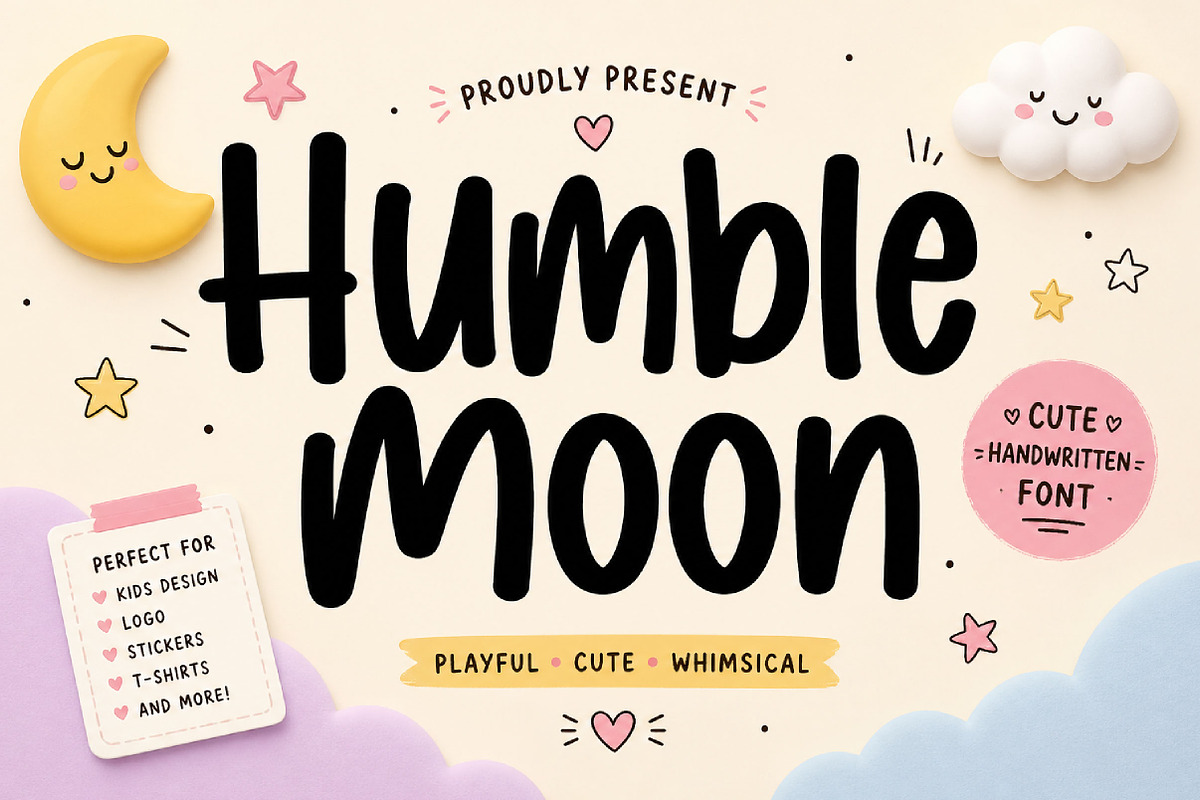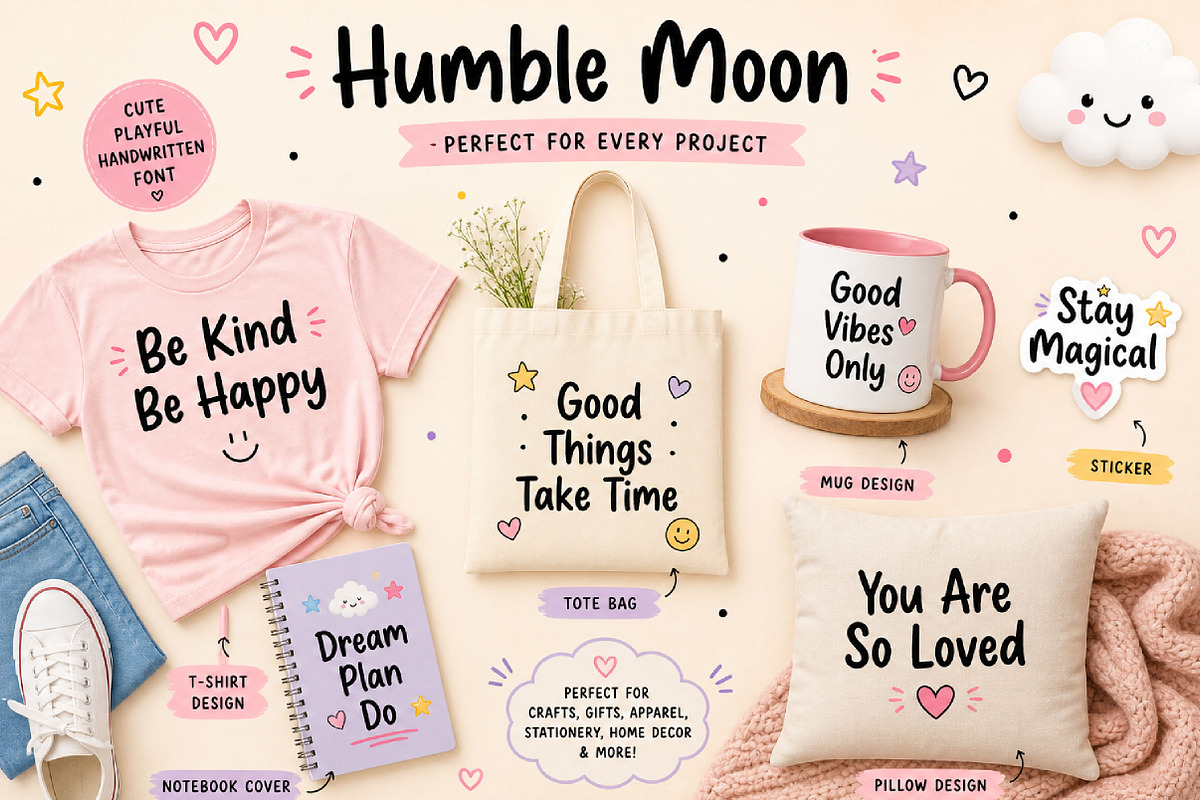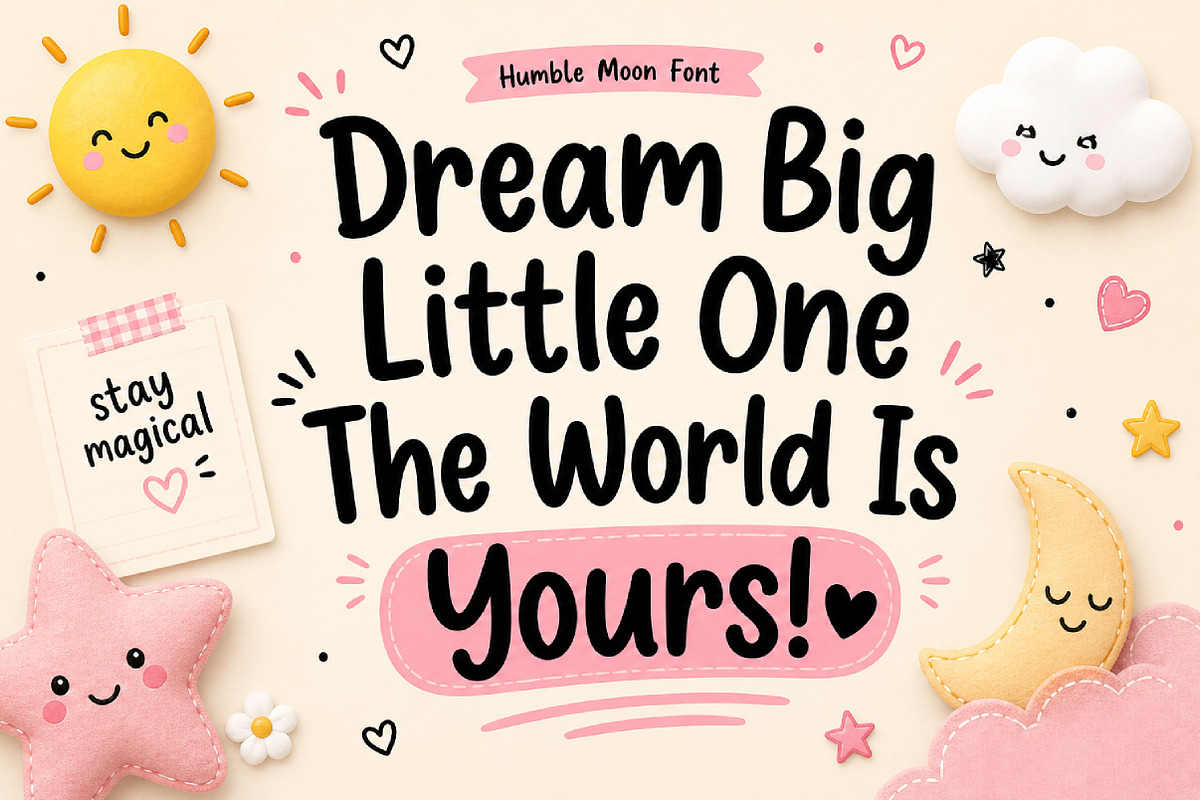
Humble Moon
Humble Moon – Bold Handwritten Display Font
Humble Moon is a bold handwritten display font with smooth, playful strokes and a friendly modern feel, perfect for logos, branding, posters, packaging, social media, and creative lifestyle designs.
Humble Moon is a bold handwritten display font designed to bring warmth, charm, and personality to your creative projects. With its thick strokes, rounded shapes, and smooth hand-drawn style, this font creates a fun and memorable look that feels modern, friendly, and expressive.
Its playful handwritten character makes Humble Moon perfect for designs that need a bold yet approachable touch. Use it for branding, logo design, product packaging, posters, social media graphics, merchandise, children’s products, website headers, creative quotes, and lifestyle designs.
Logos and branding
Posters and headlines
Product packaging
Merchandise design
Children’s products
Lifestyle branding
Website headers
Creative quotes
Advertising materials
Bold handwritten style
Smooth rounded strokes
Playful modern look
Perfect for display use